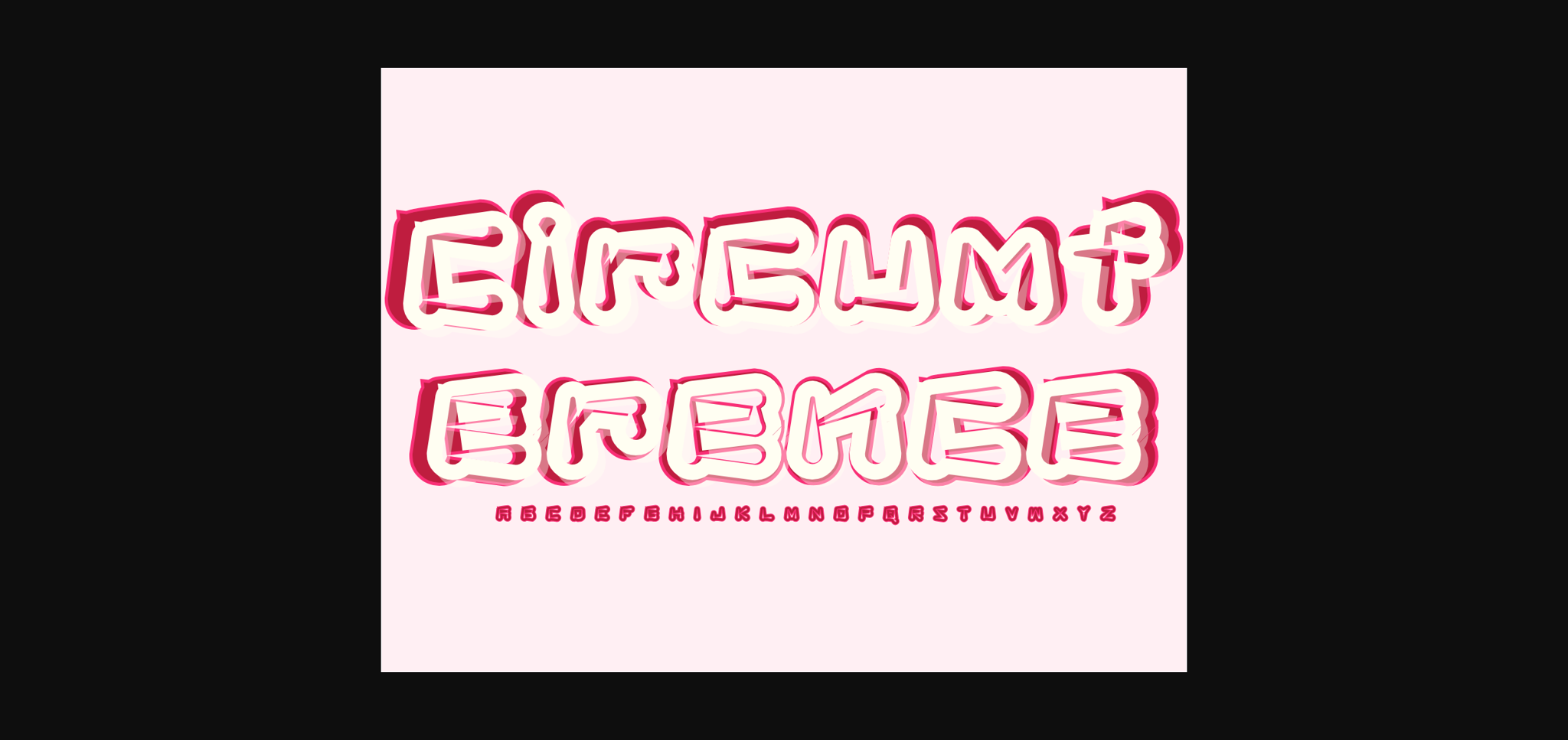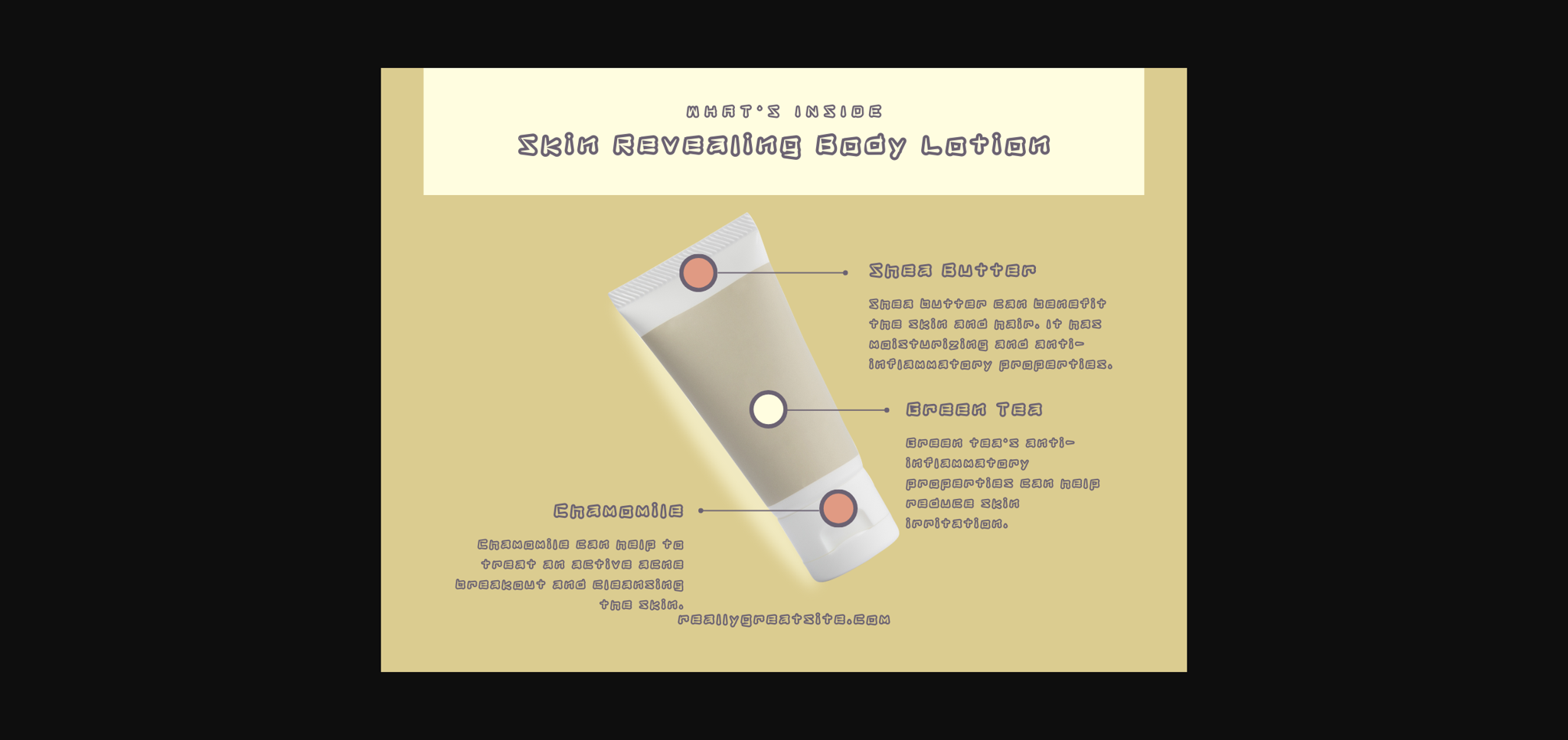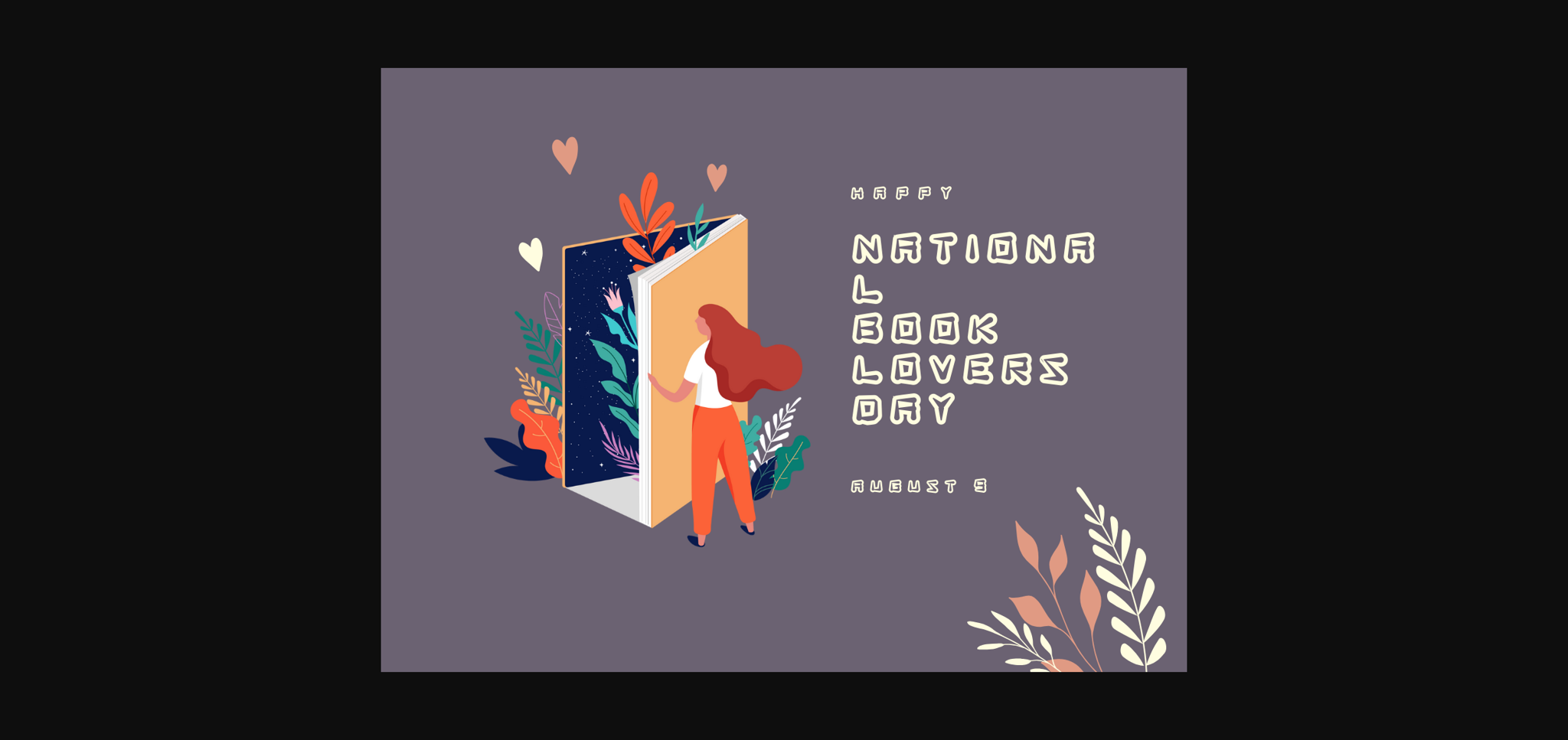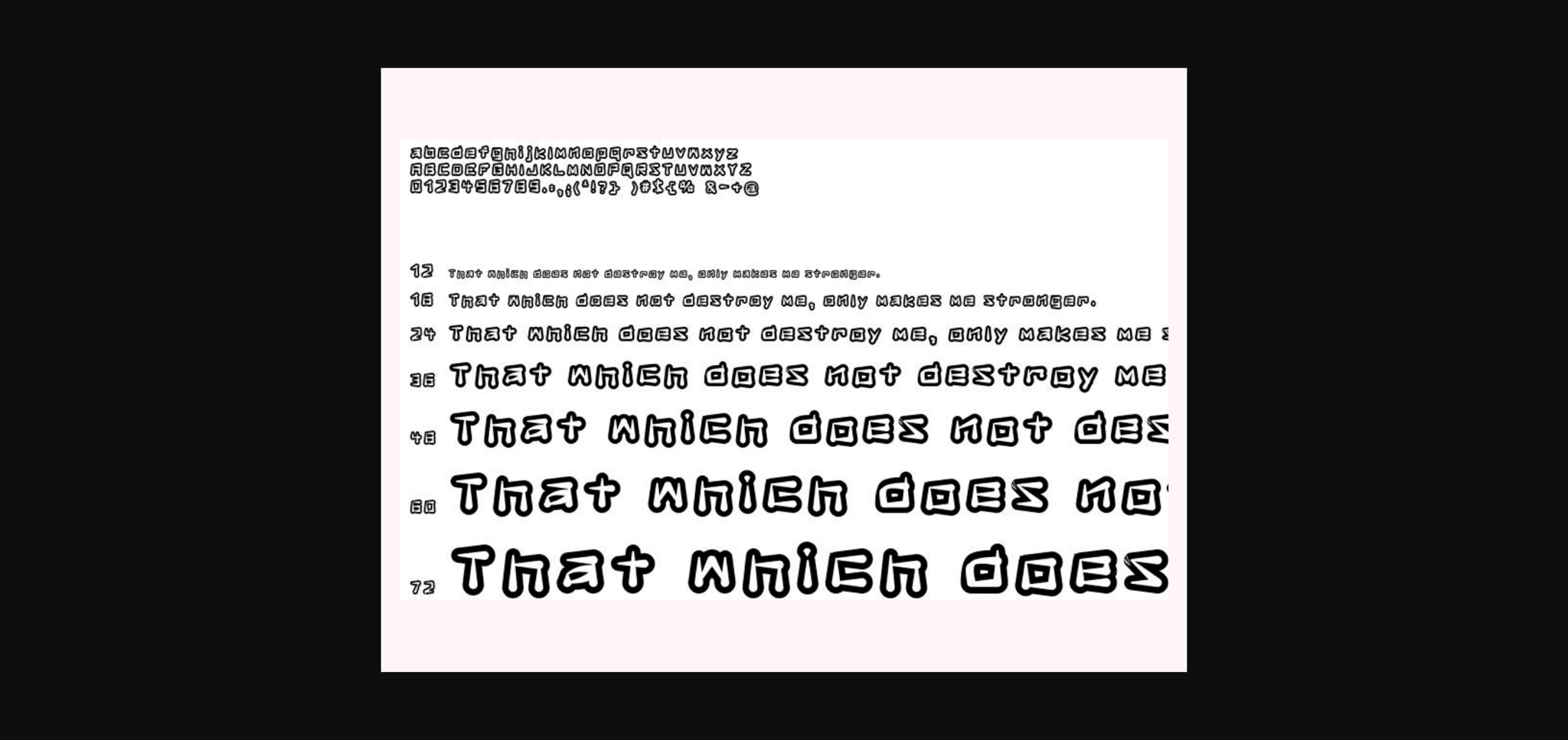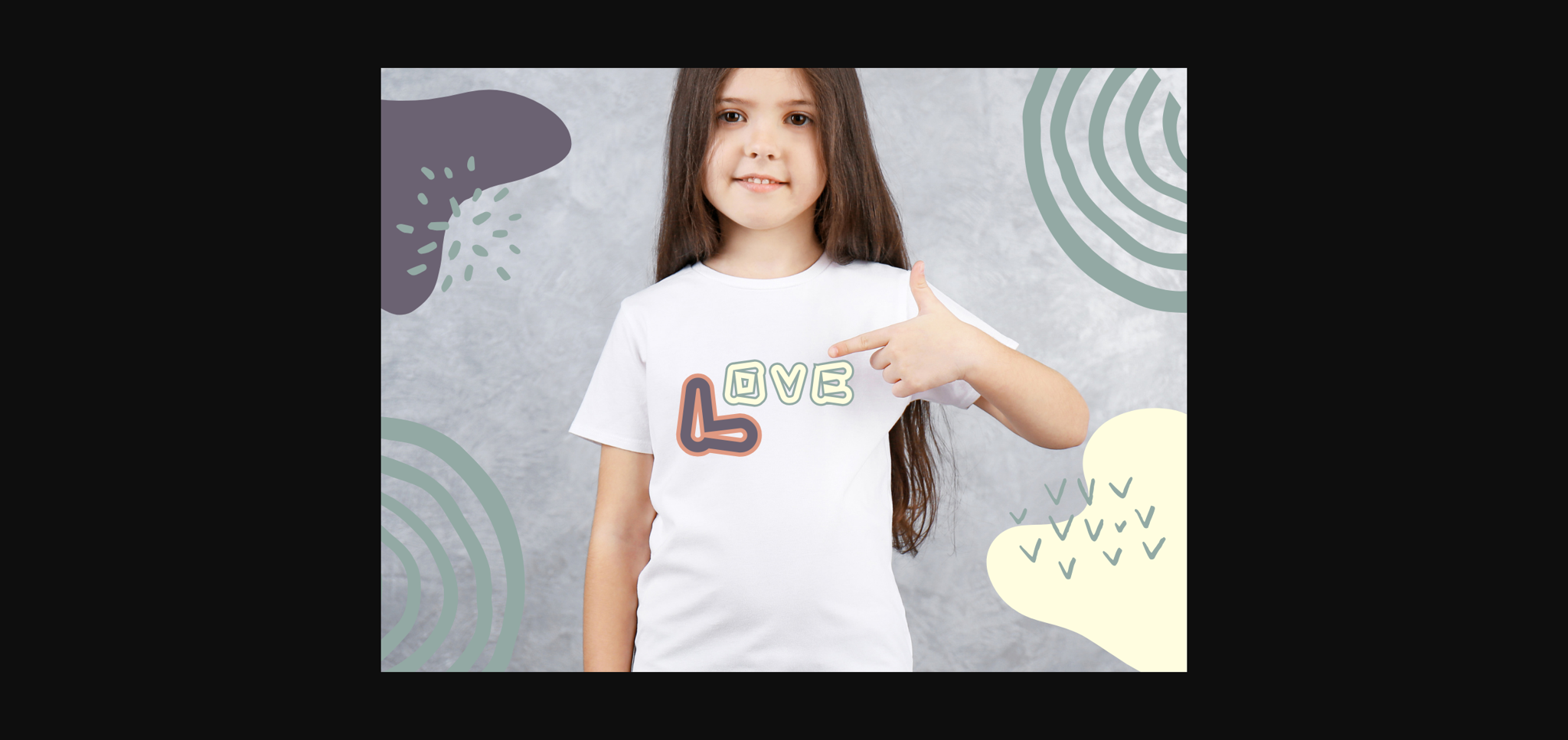
About Circumference Font
It has its own identity. It can be used to add distinctiveness to your work whether it is used in a letter, design greeting cards, wedding cards Quotes, Goodnotes, planners, handwritten notes, logos, teachers, and more giving your letters a unique look.